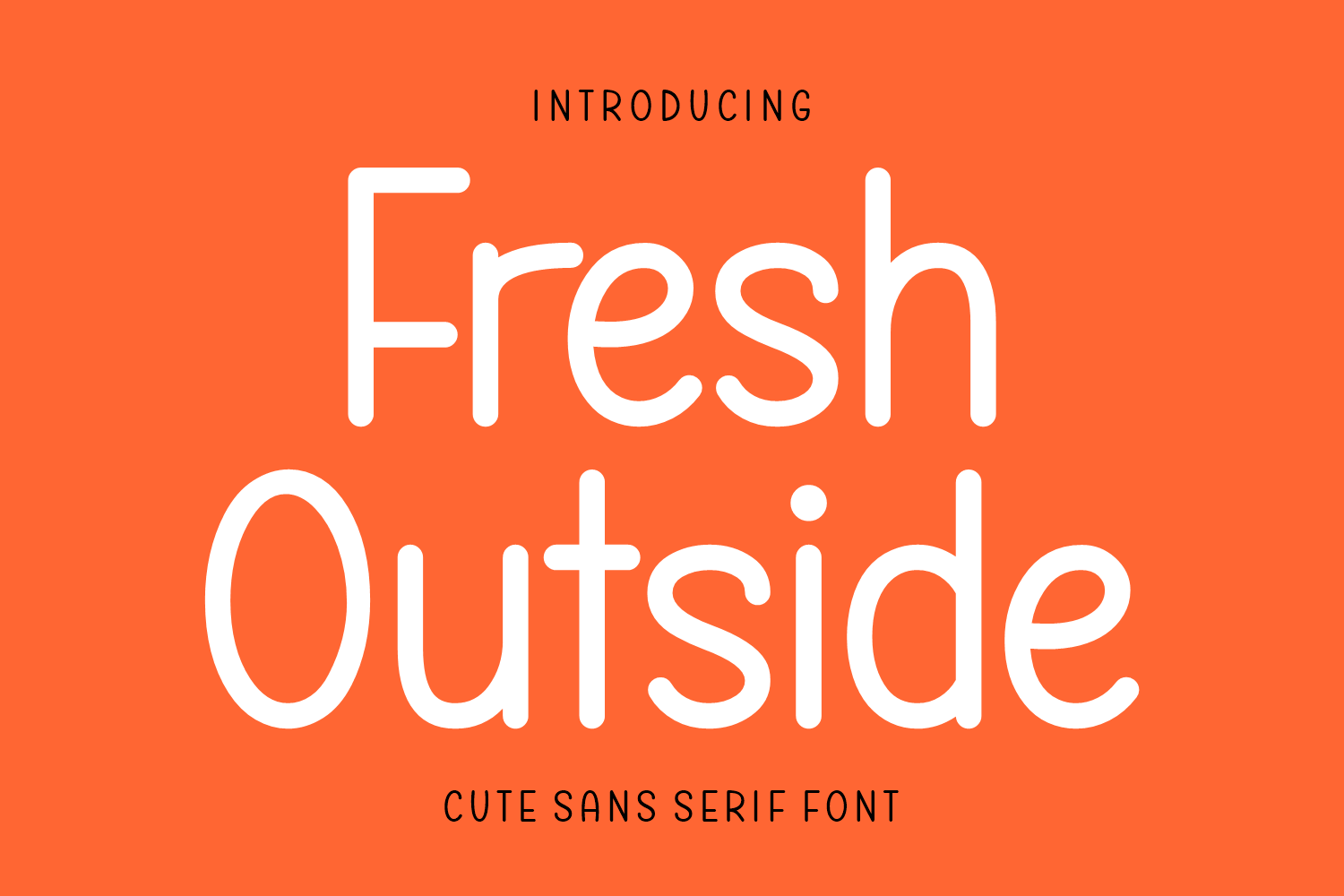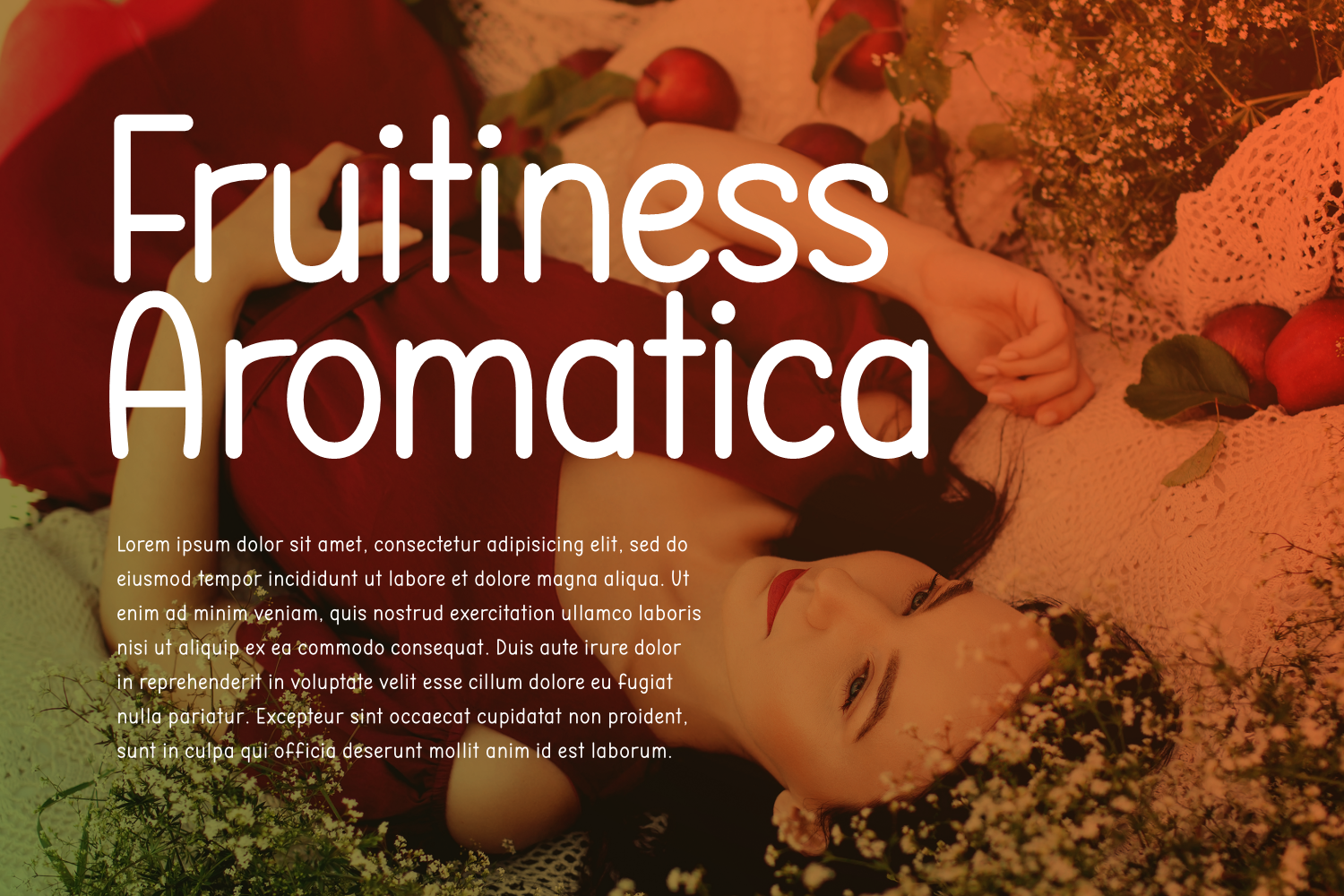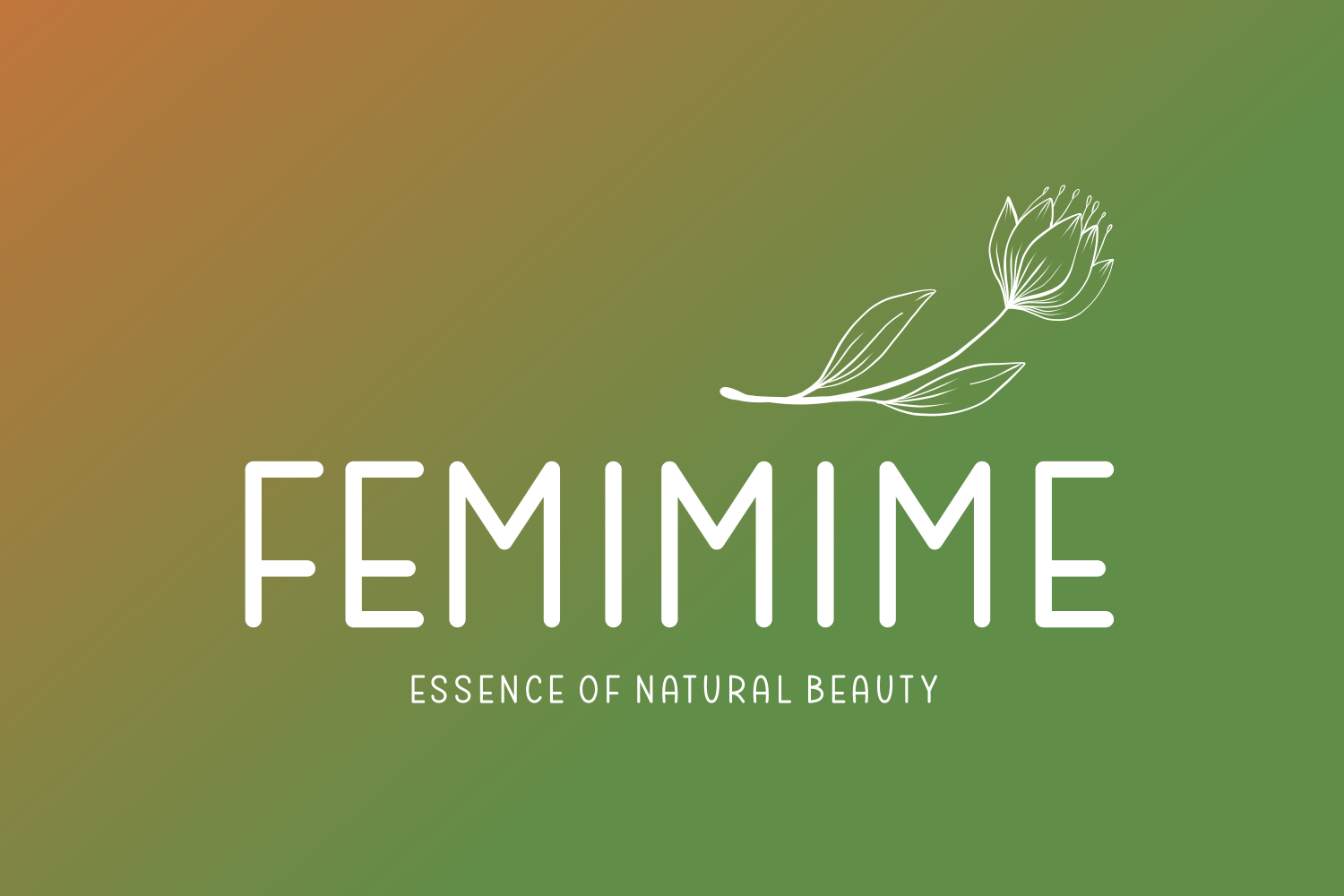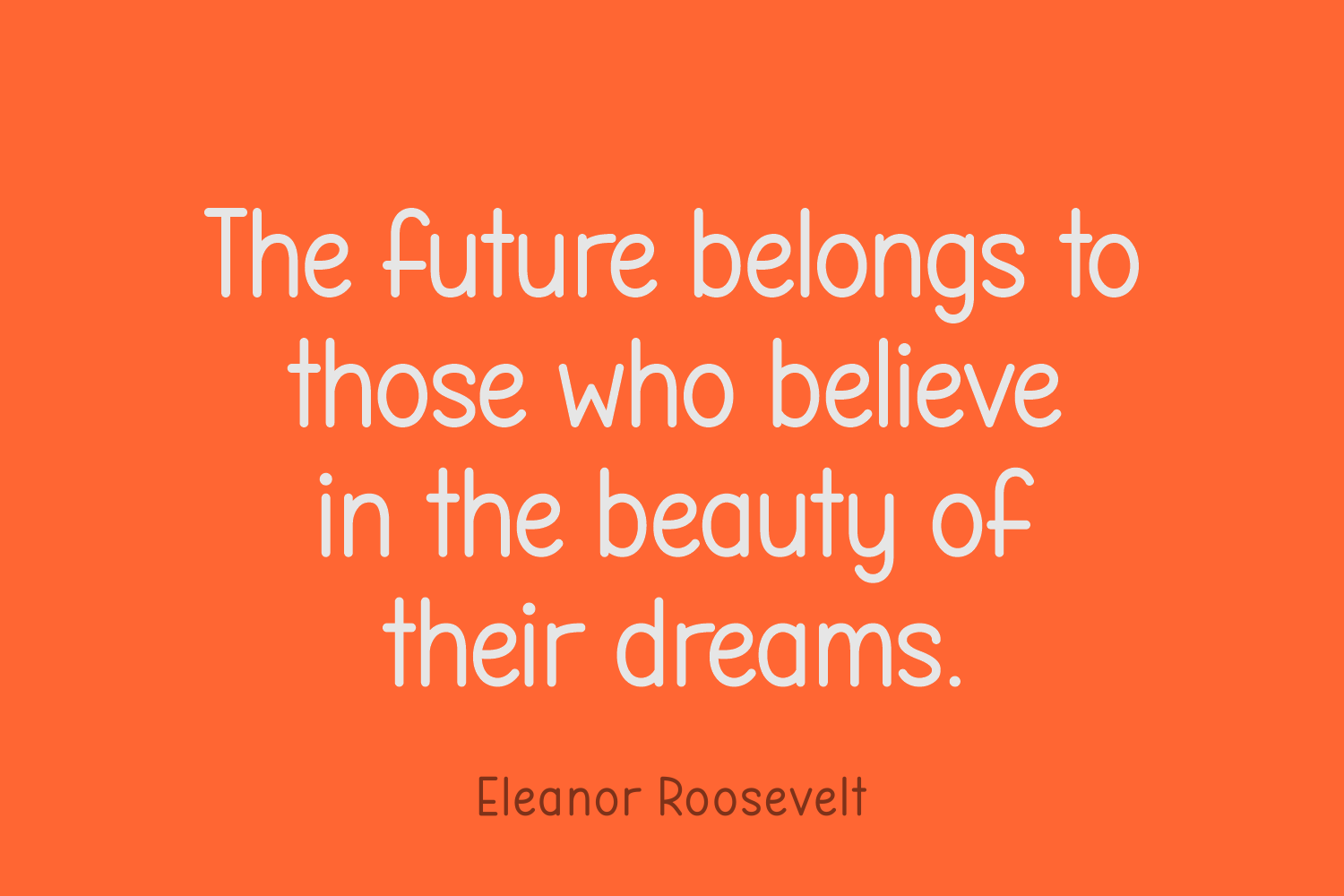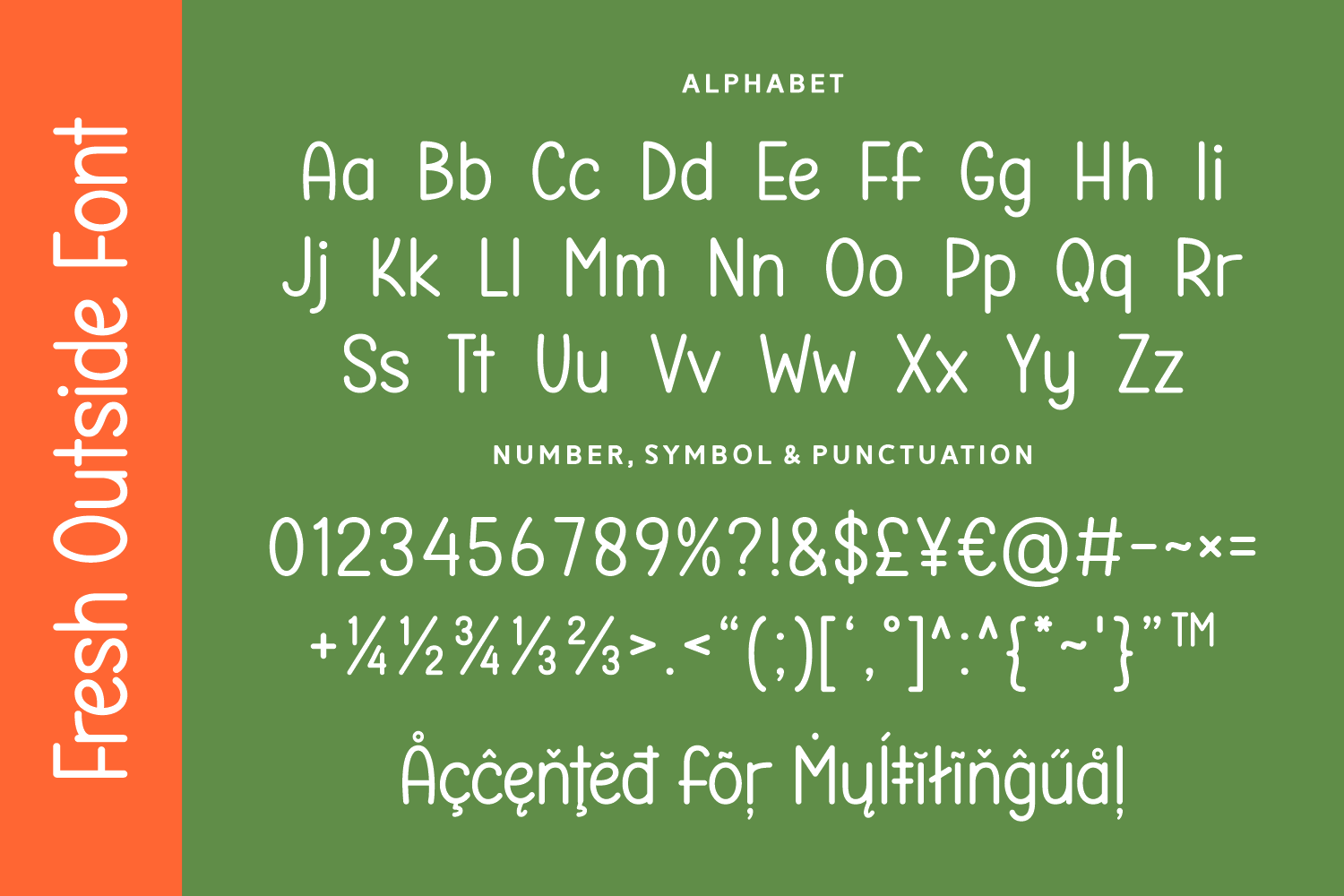
Fresh Outside
Fresh Outside is a cute sans serif typeface with soft curves and balanced proportions, ideal for lifestyle branding, fun social media graphics, and packaging that needs a refreshing, lighthearted look.